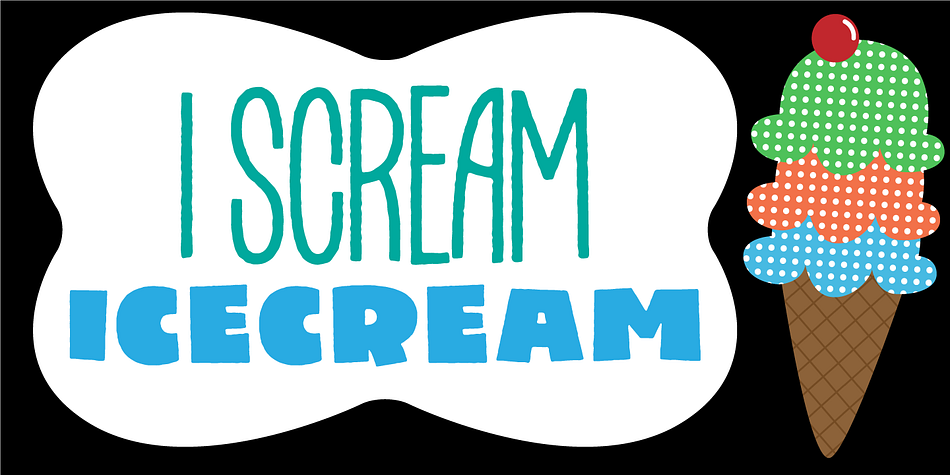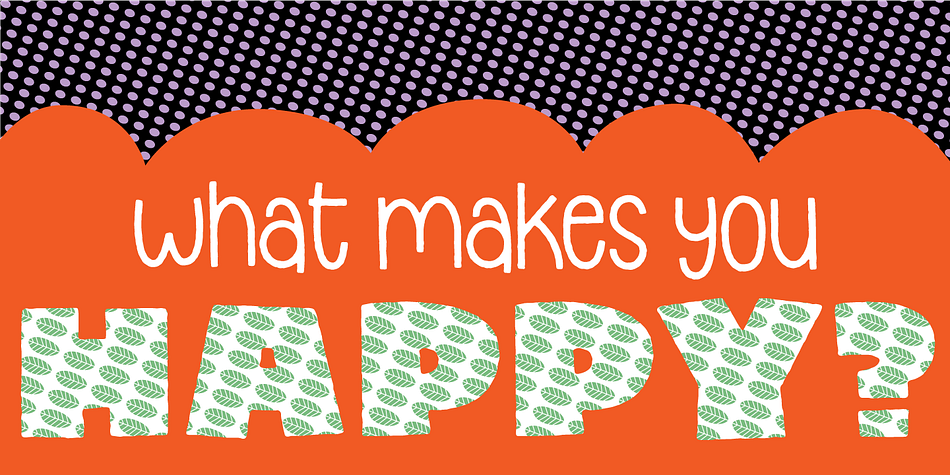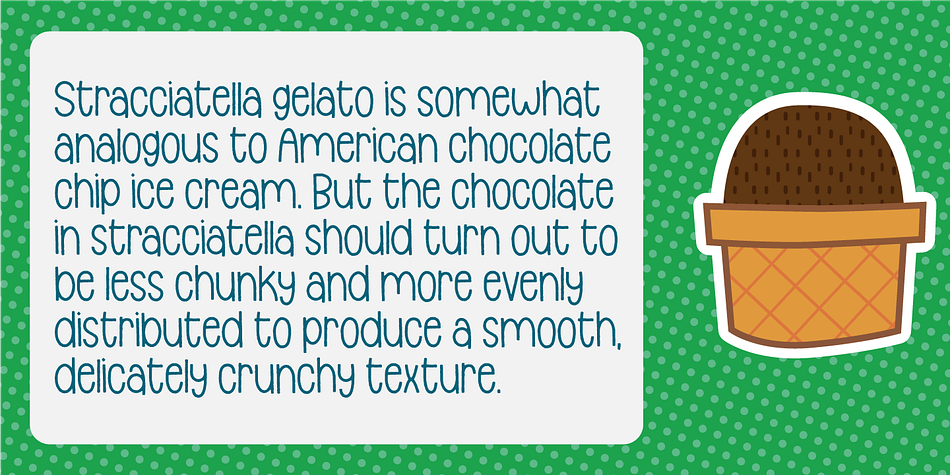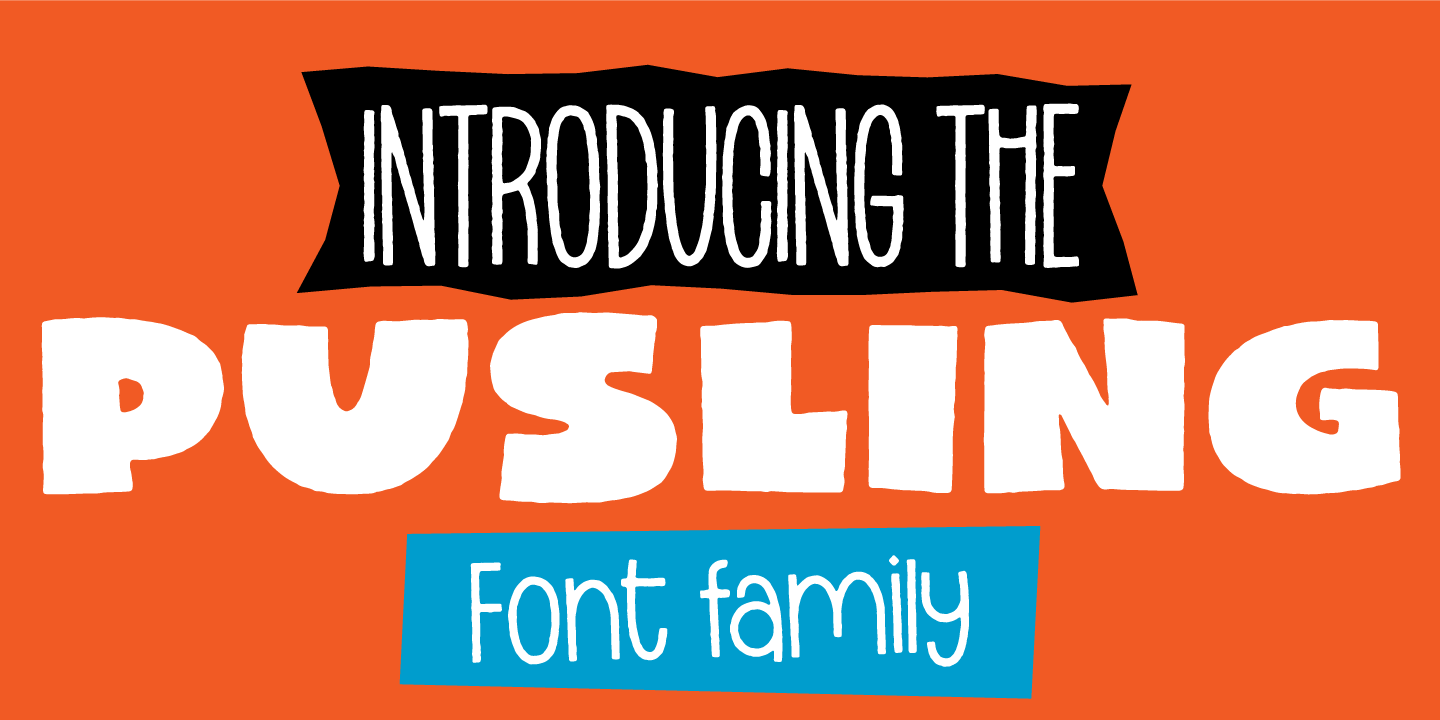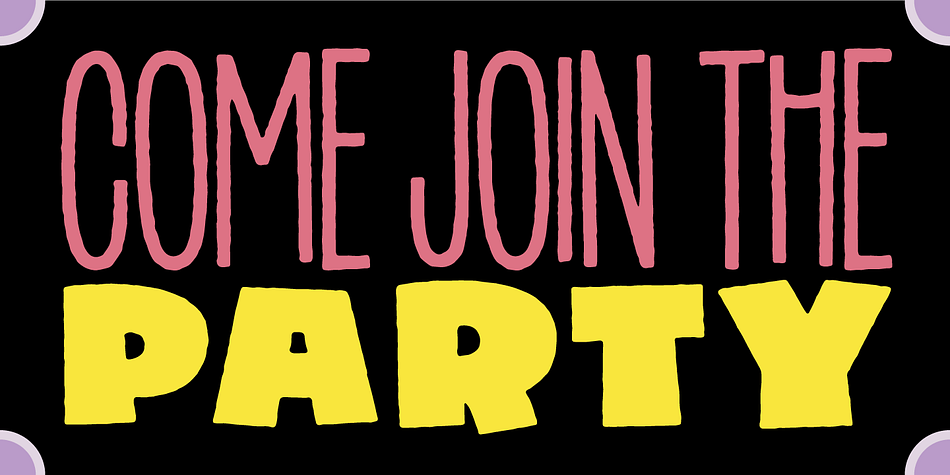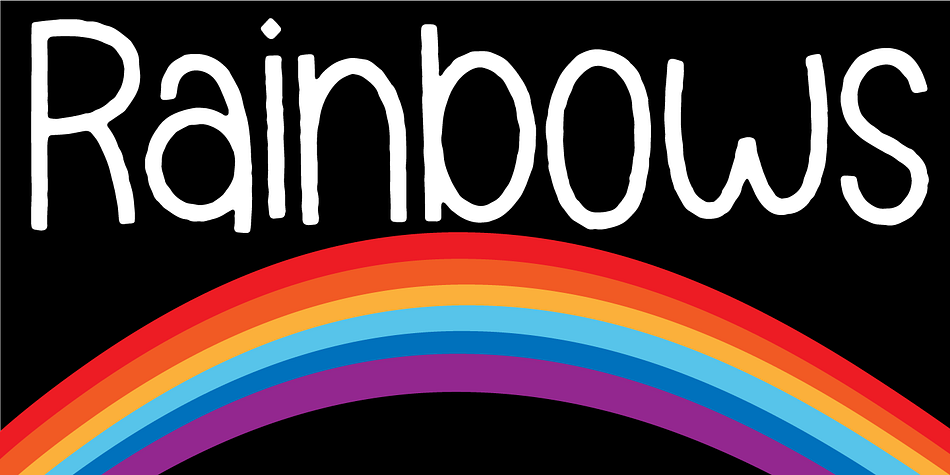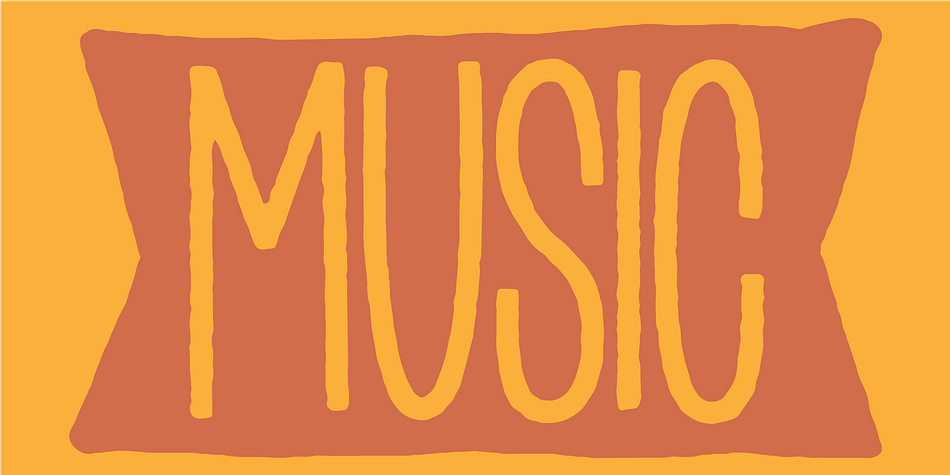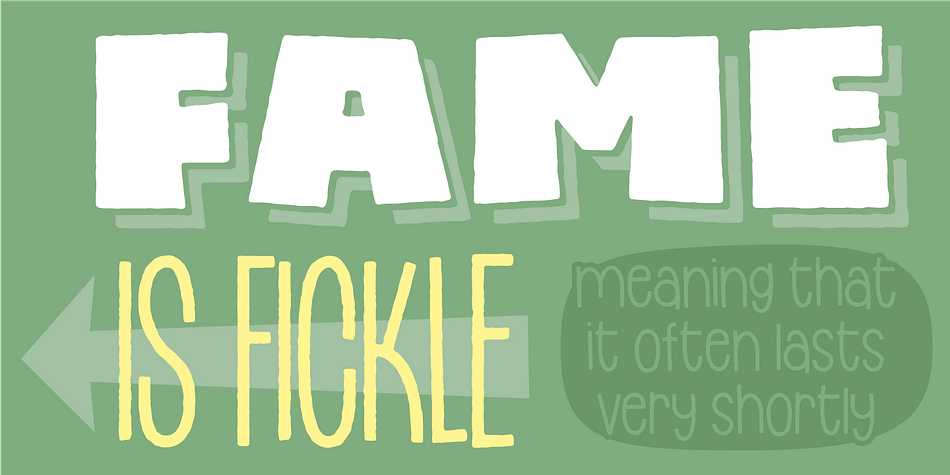
Designed by Jakob Fischer, Pusling is a hand drawn, hand display and kids font family. This typeface has three styles and was published by Bogstav.
The Pusling family has 3 members: Text (the tall one) Sans (the expressive one) and Puff (the comic one)
These 3 family members work very well together, just go ahead and give it a try!